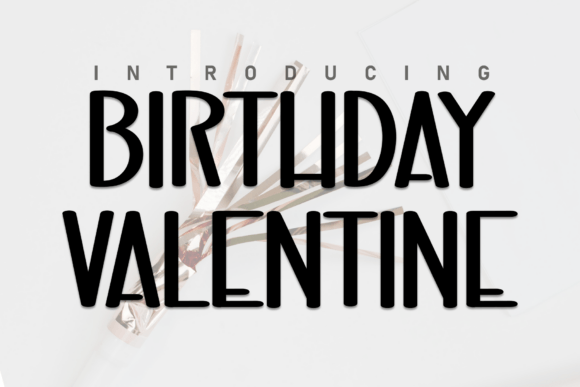
The Birth of a Beautiful Font: A Designer’s Love Affair with Birthday Valentine
I’ll never forget the moment I stumbled upon the perfect font for a client’s wedding invitation project. I had been searching for what felt like an eternity, trying out font after font, but nothing seemed quite right. That was until I discovered Birthday Valentine, a stunning handwritten font that looked like it was drawn with a marker. It was love at first sight! 💕
As I began to work with Birthday Valentine, I realized that its relaxed and sporty feel made it perfect for a wide range of design projects, from branding and logos to wedding supplies and greeting cards. In this article, I’ll share my honest review of the font, provide a practical guide on how to use it, and explore similar fonts that you might enjoy.
An Honest Review of Birthday Valentine
- 💯 The font’s unique, hand-drawn feel adds a touch of elegance and sophistication to any design
- ✅ Its relaxed and sporty vibe makes it perfect for a wide range of projects, from casual to formal
- 🎉 The font’s versatility allows it to be used in various contexts, from digital to print
- 👍 The font is highly legible, even at smaller sizes
While Birthday Valentine is an amazing font, there are a few things to keep in mind:
- 🤔 The font may not be suitable for very formal or traditional designs, as it has a more casual feel
- ⚠️ Some characters, such as the uppercase letters, can be a bit quirky and may require manual kerning
The Designer Inspiration Behind Birthday Valentine
While the true story behind Birthday Valentine’s creation is unknown, it’s easy to imagine that the designer was inspired by the beauty of handwritten letters and the elegance of marker-drawn illustrations. Perhaps the designer wanted to create a font that would add a touch of whimsy and personality to designs, while still maintaining a level of sophistication and elegance.
Q: What type of designs is Birthday Valentine best suited for?
A: Birthday Valentine is perfect for a wide range of designs, including branding, logos, wedding supplies, greeting cards, fashion, lookbooks, and marketing promotions.